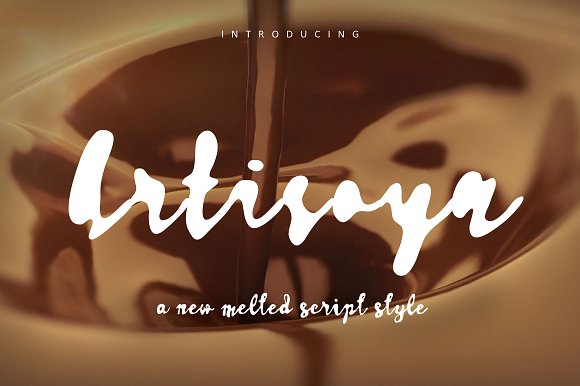
The Artisoya Font: A Designer’s New Best Friend
I’ll never forget the frustration I felt while working on a project, searching for the perfect font to bring my design to life. My client wanted something unique, yet elegant, and I was determined to deliver. That’s when I stumbled upon the Artisoya font, created by Darwinoo. It was love at first sight! ✨ In this article, I’ll share my experience with Artisoya, its features, and how to make the most of it in your designs.
An Honest Review of Artisoya Font
- ✨ Unique and elegant design that’s perfect for creative projects
- 🎨 Versatile and adaptable to various design styles
- 💻 Great for both digital and print designs
While Artisoya is an amazing font, there are a few things to keep in mind: 🤔
- ⚠️ Limited availability of stylistic alternates, which might limit its use in certain designs
- ⚠️ Some users might find the font too ornate for certain projects
- Experiment with OpenType features, such as ligatures and stylistic alternates, to add a personal touch to your design
The Story Behind Artisoya Font
Darwinoo, the creator of Artisoya, is a passionate designer who aimed to create a font that’s both unique and elegant. Inspired by traditional craftsmanship and modern design trends, Artisoya was born. The font is designed to be versatile and adaptable, making it perfect for various creative projects.
| What is the Artisoya font best used for? | Artisoya is perfect for creative projects, such as branding, packaging, and digital designs, where a unique and elegant font is required. |
| Is Artisoya compatible with OpenType features? | Yes, Artisoya supports OpenType features, including ligatures and stylistic alternates. |